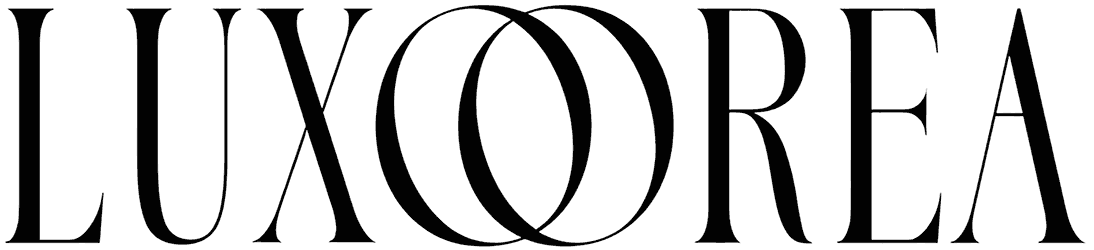
Luxoorea Font
Luxoorea is a luxury serif font that comes with a sense of established and classic design to the readers’ minds. You will find this font pretty useful when you have a project requiring a formality and sophistication that you can’t find anywhere else.
Aside from this font’s downside, which is the lack of lowercase and all the numbers, you get a collection of well-designed letters containing uppercase and punctuation marks.